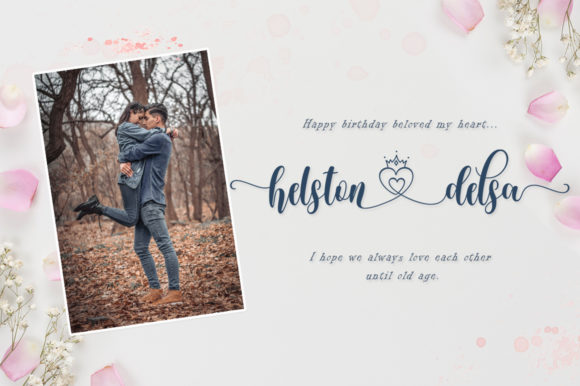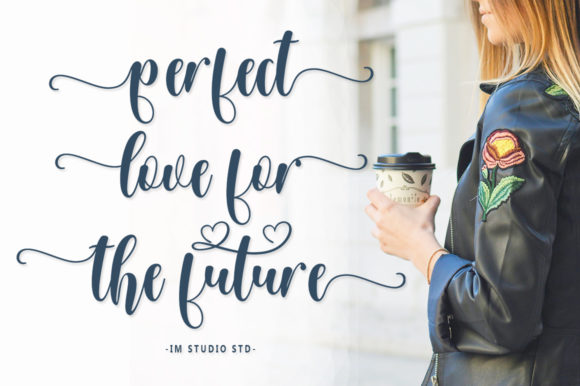
Adsention Font
db-ku.com - Script & Handwritten -- Adsention is a beautiful handwritten font with a romantic theme. Add this font to your creative ideas and notice how it will make them stand out!